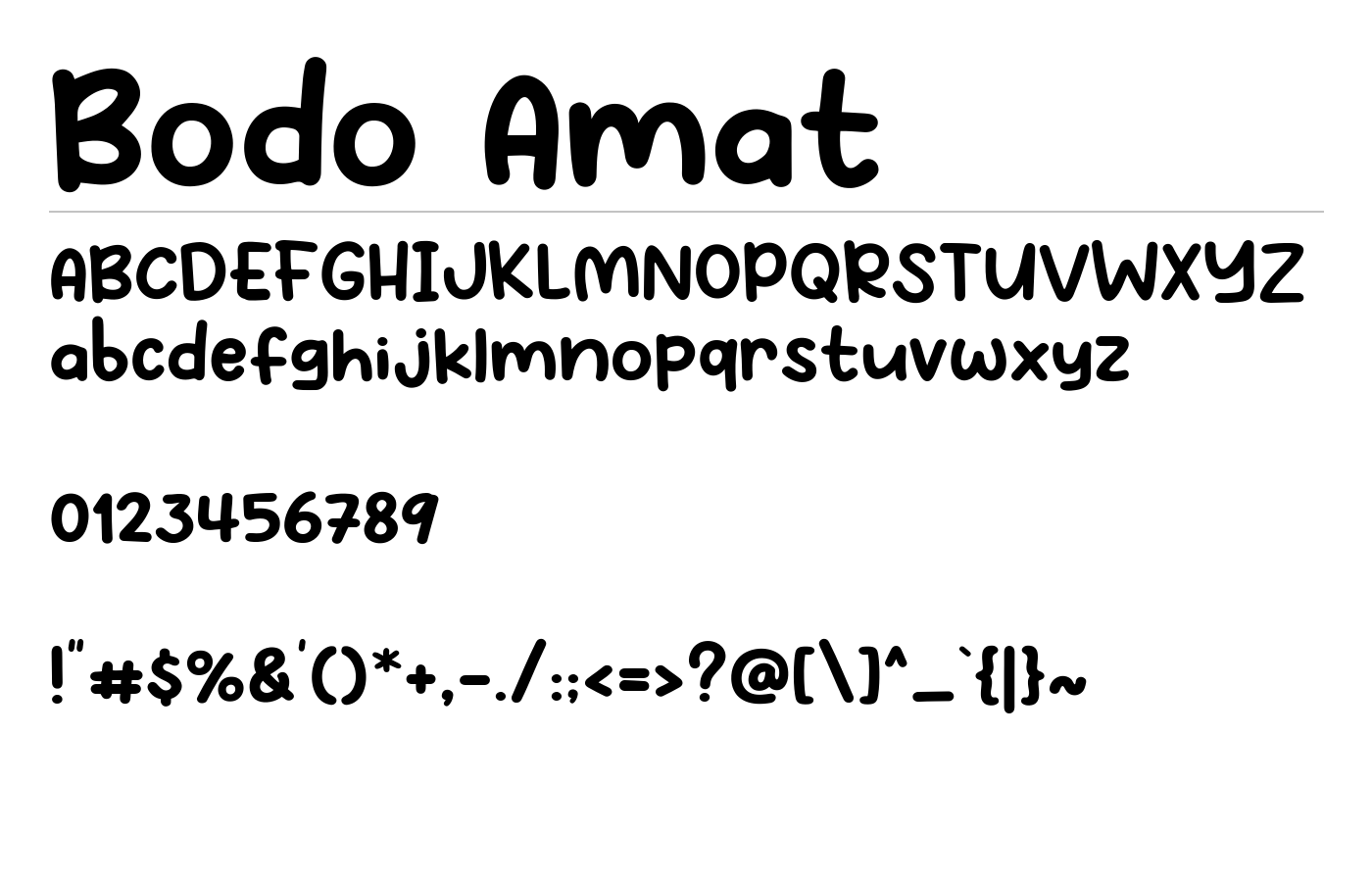
Bodo Amat is a playful, rounded sans serif font that combines a friendly, hand-drawn feel with clear legibility. Its smooth, slightly thick strokes and casual letterforms make it ideal for informal designs, children's projects, and creative branding where warmth and approachability are essential. This font works well in logos, headlines, and packaging that seek a fun and inviting personality.
Bodo Amat Font
About Bodo Amat Font
| Font family | Bodo Amat Font |